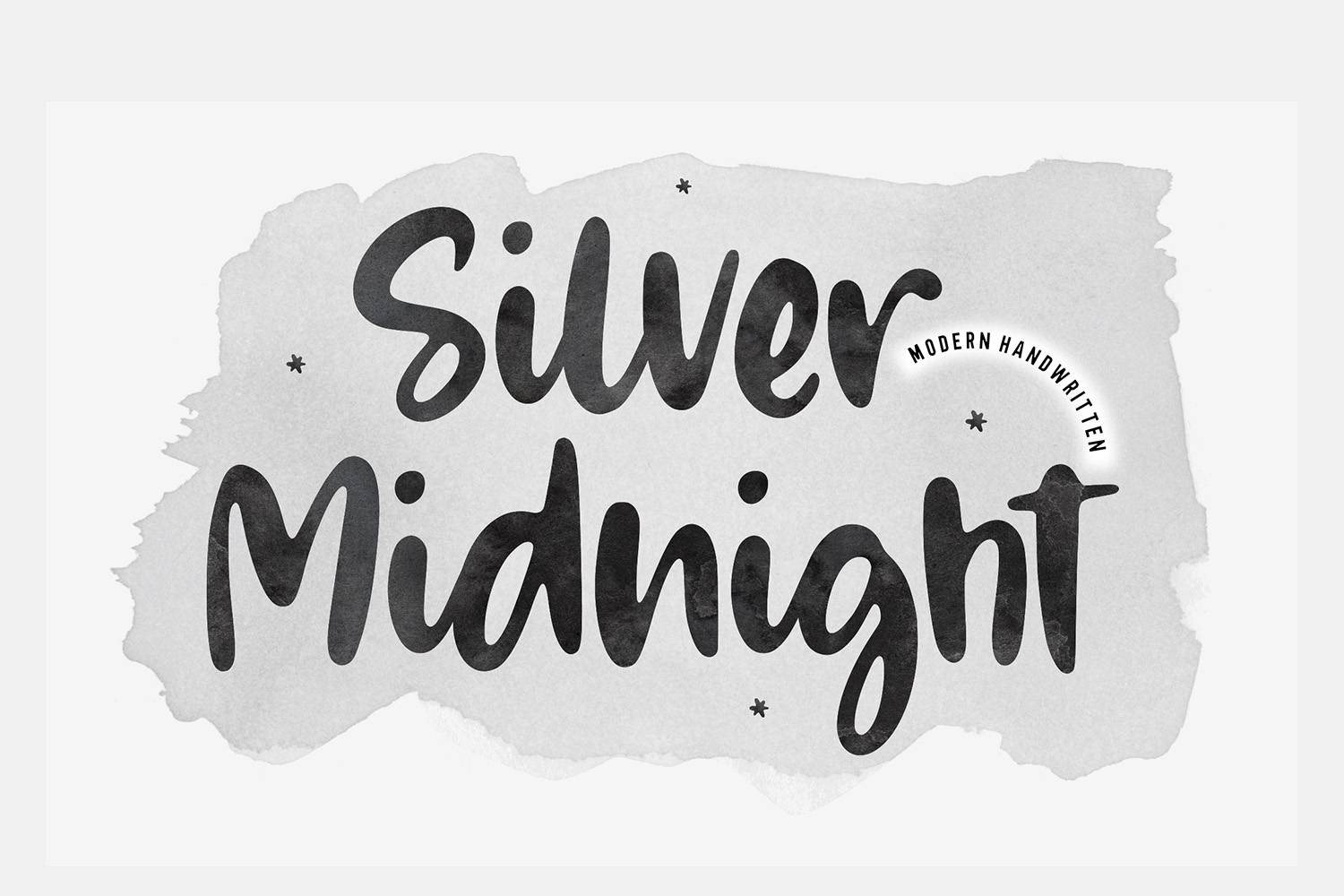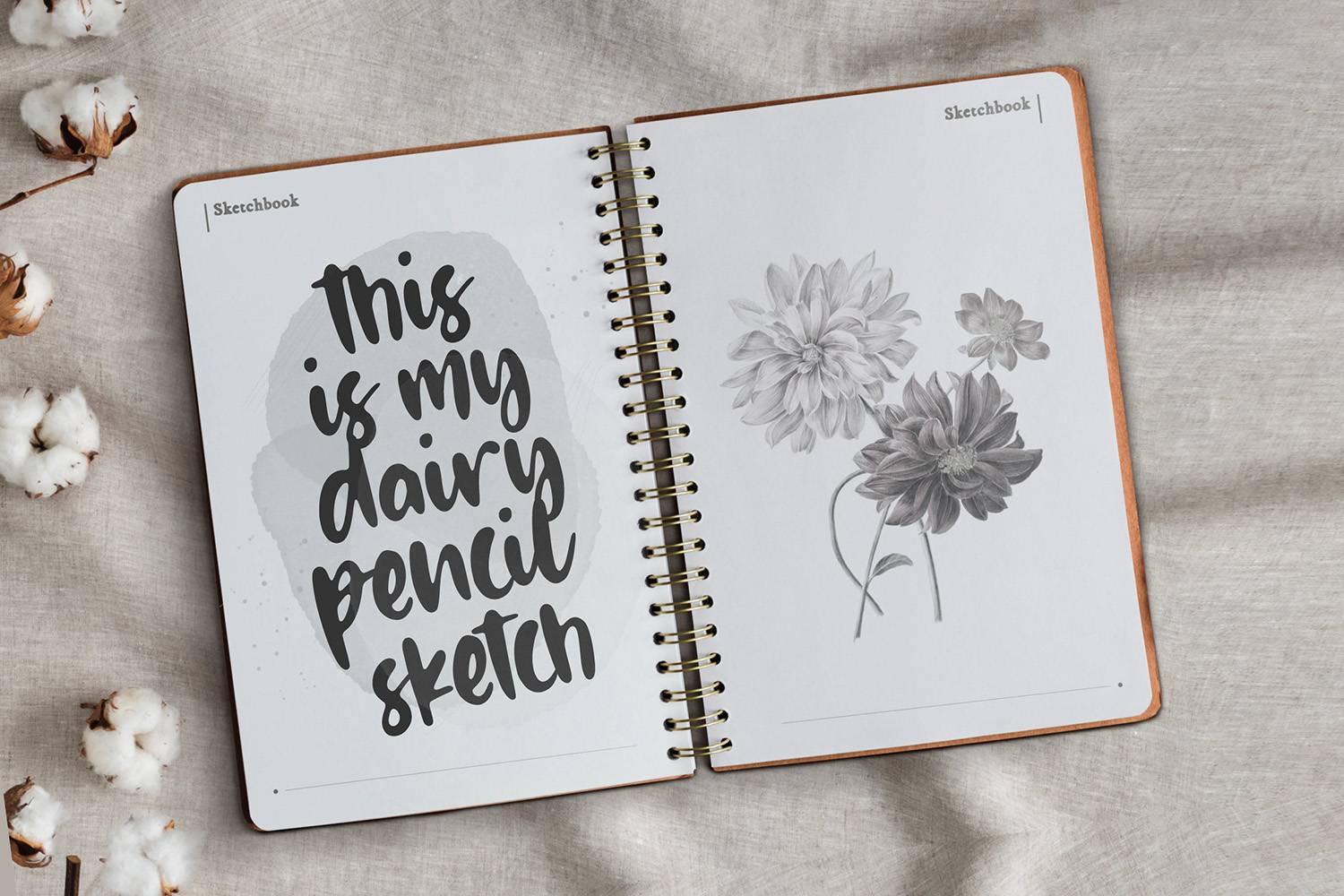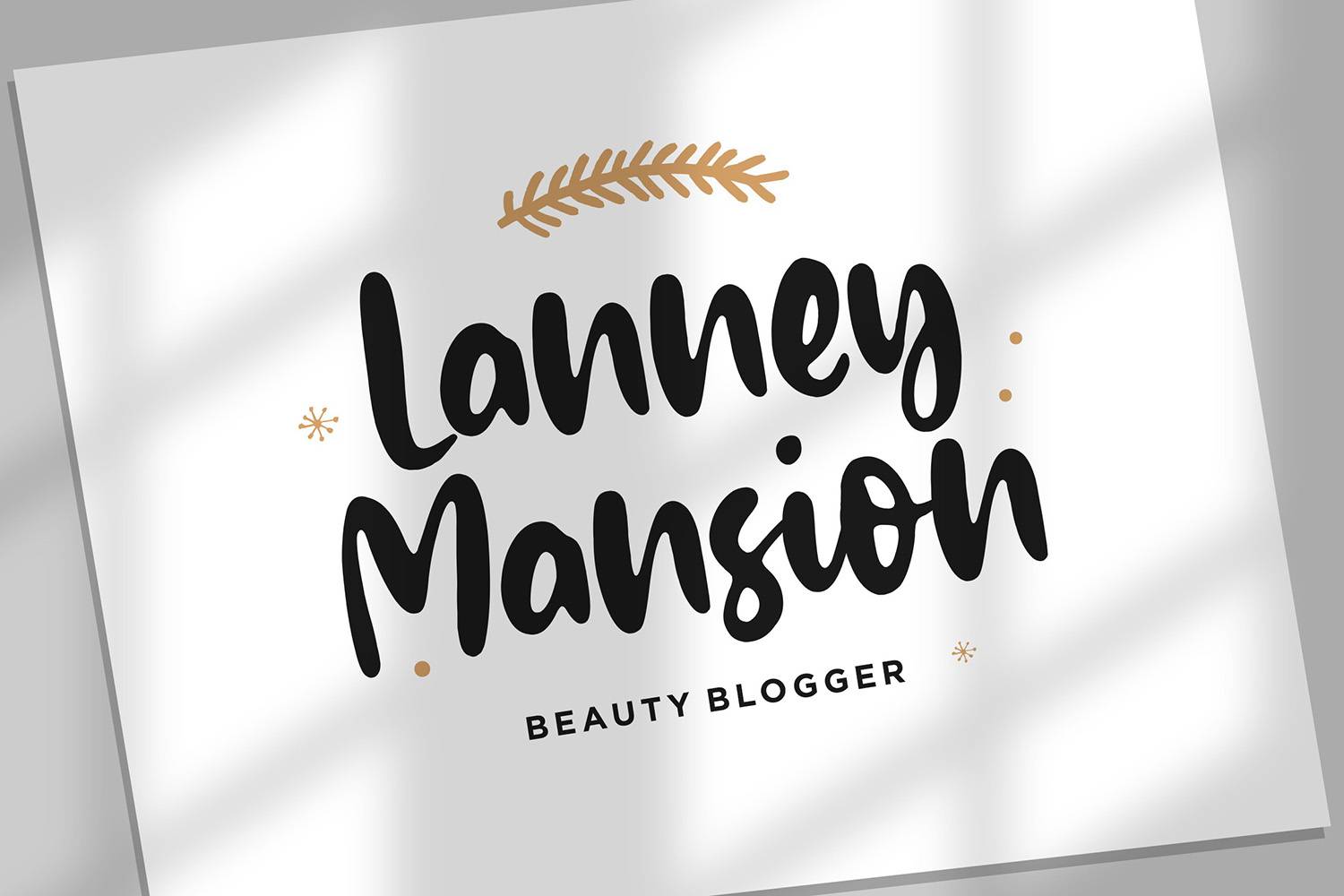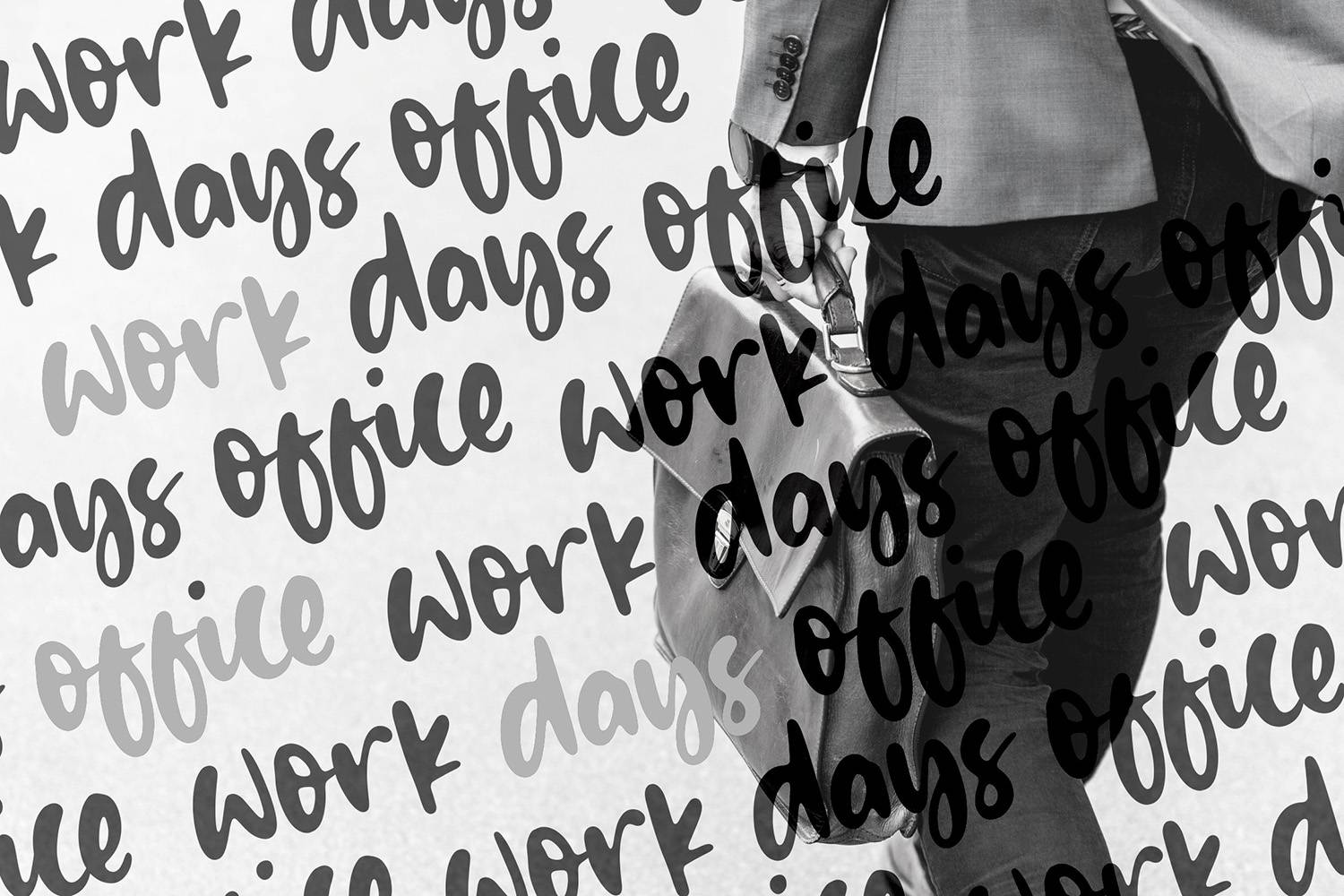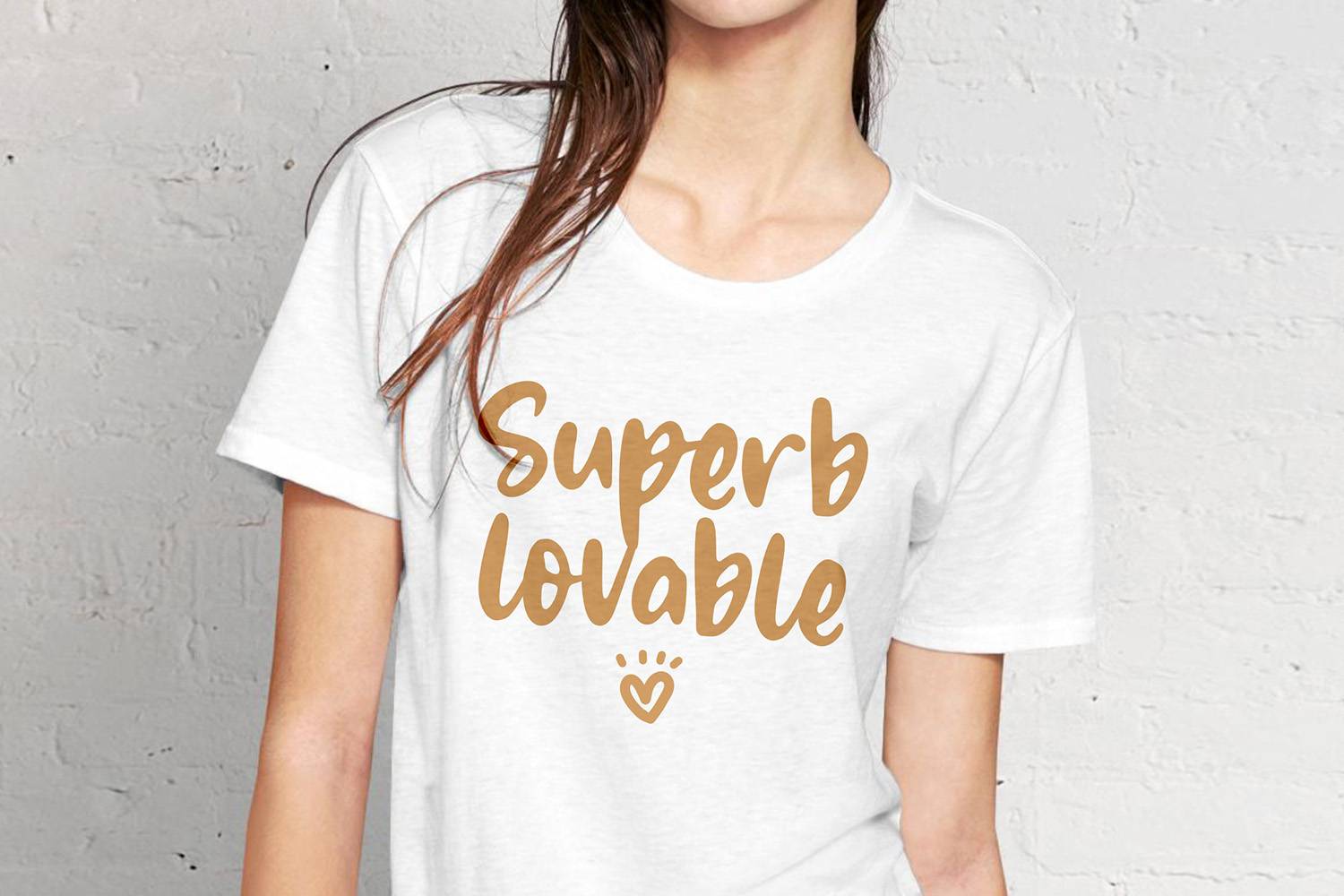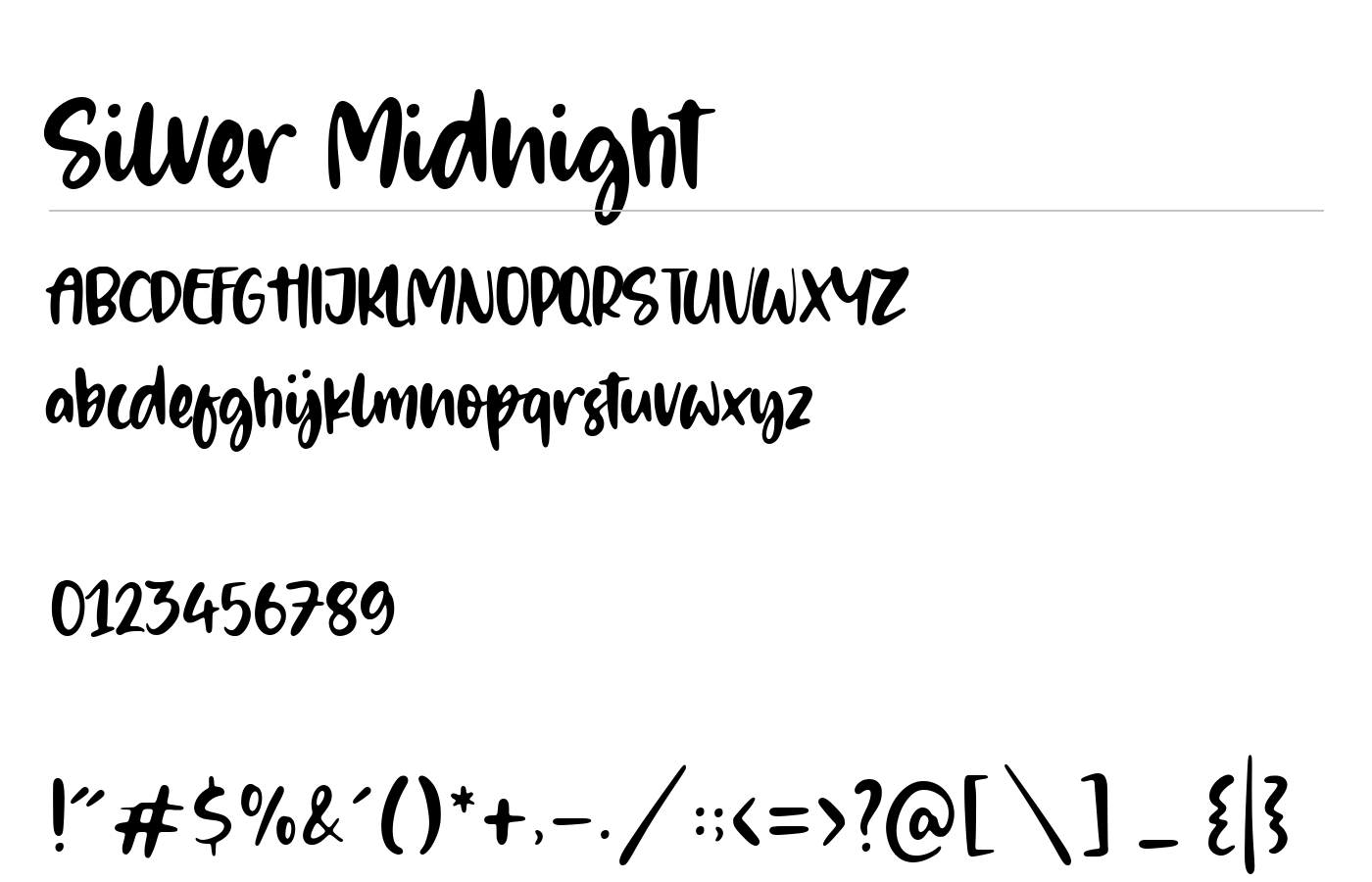
Silver Midnight is a playful, casual handwritten font with smooth, rounded strokes and a friendly, approachable feel. Its medium weight and moderate contrast make it versatile for informal branding, social media graphics, and creative projects where a personal, lively touch is desired. This font works wonderfully in headlines and logos that aim to convey warmth and originality.
Silver Midnight Font
About Silver Midnight Font